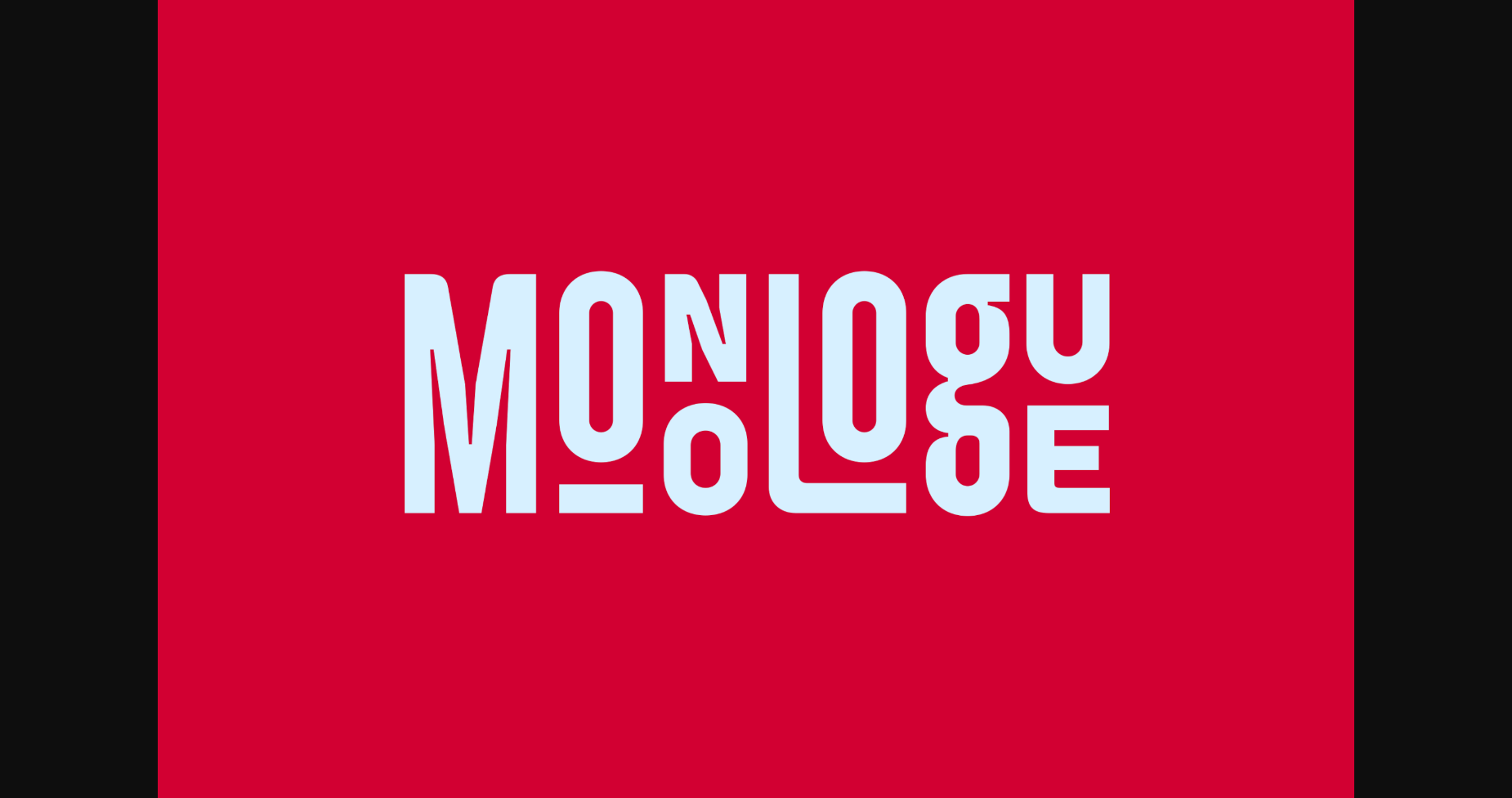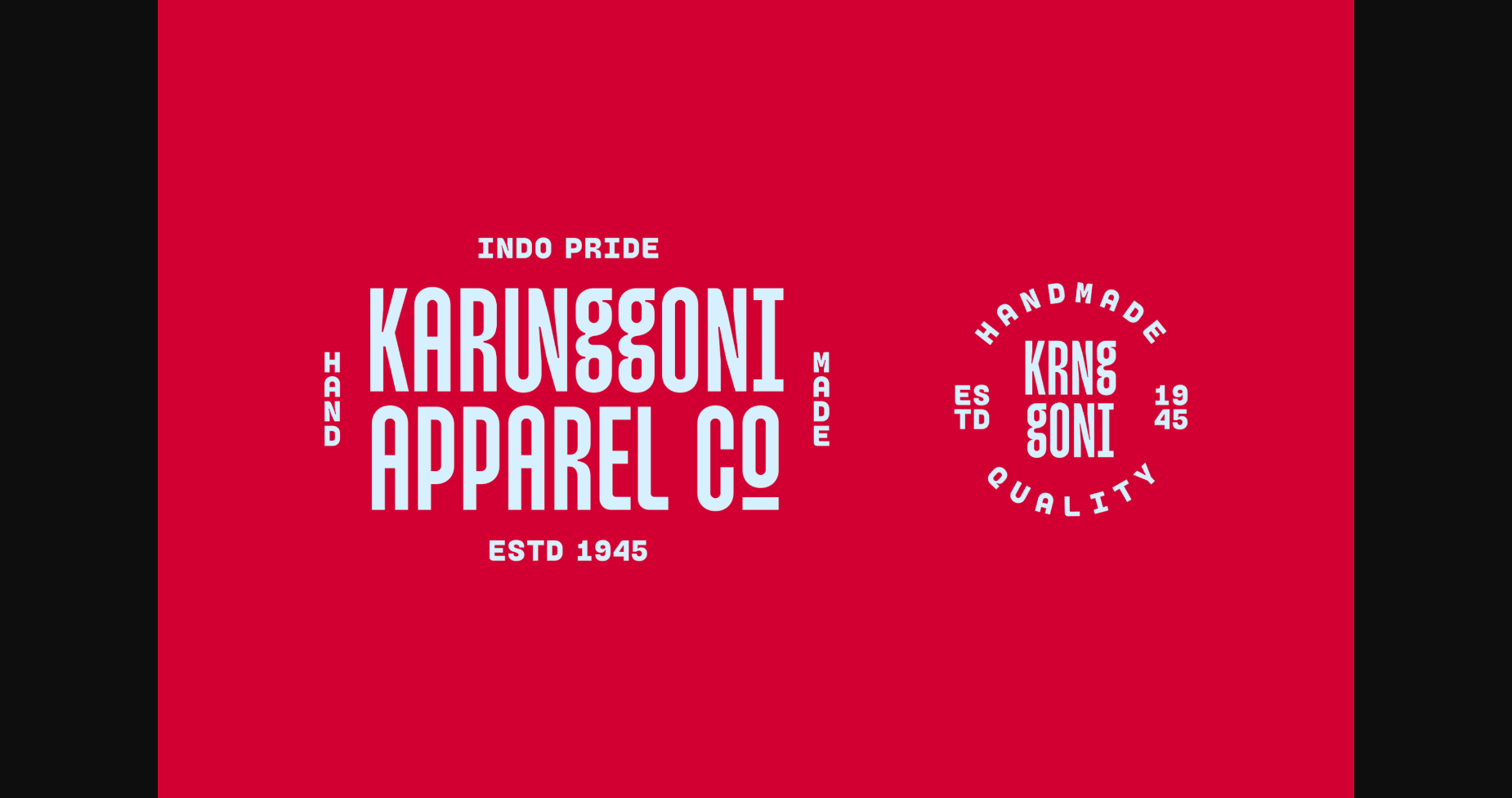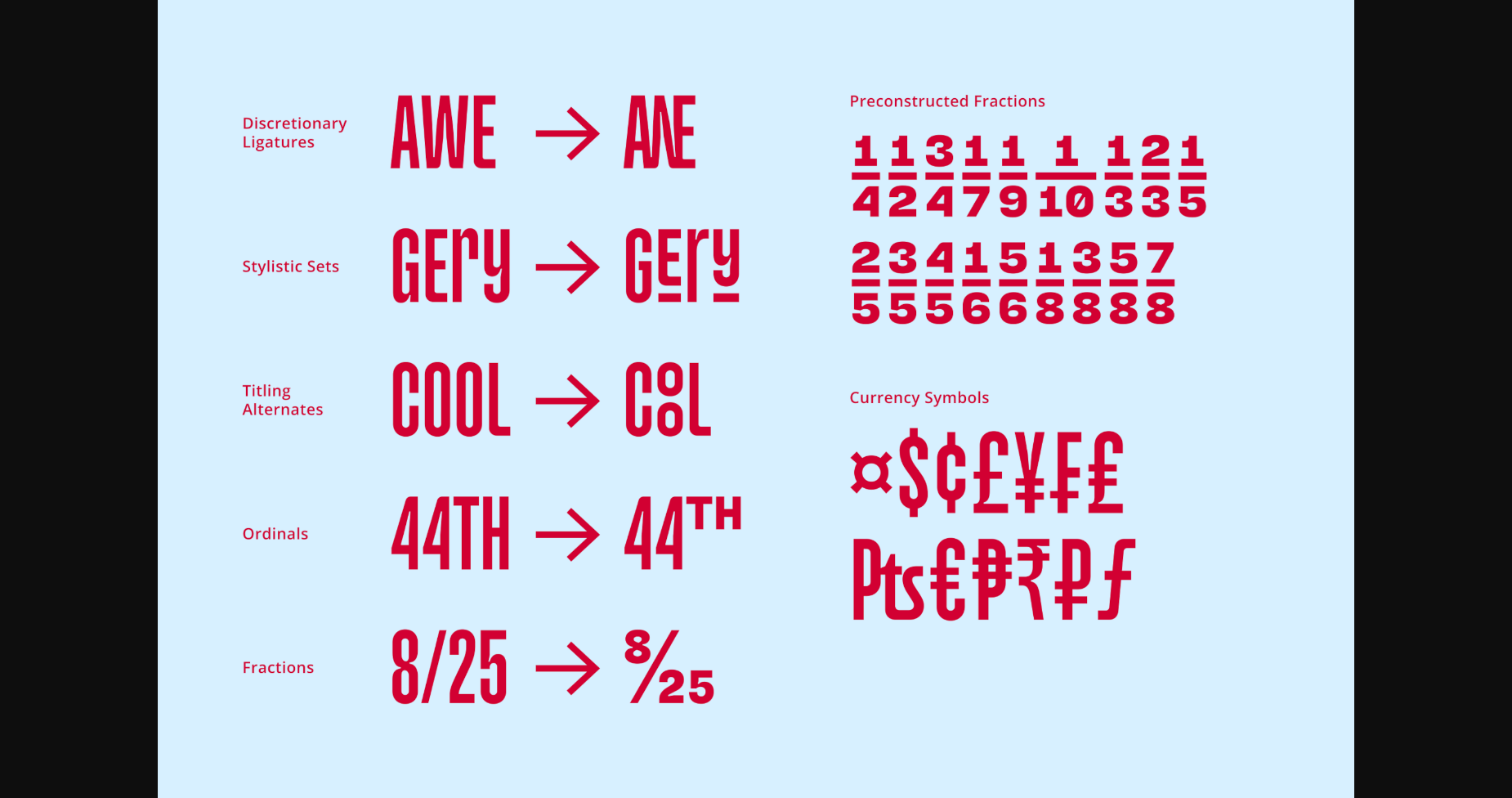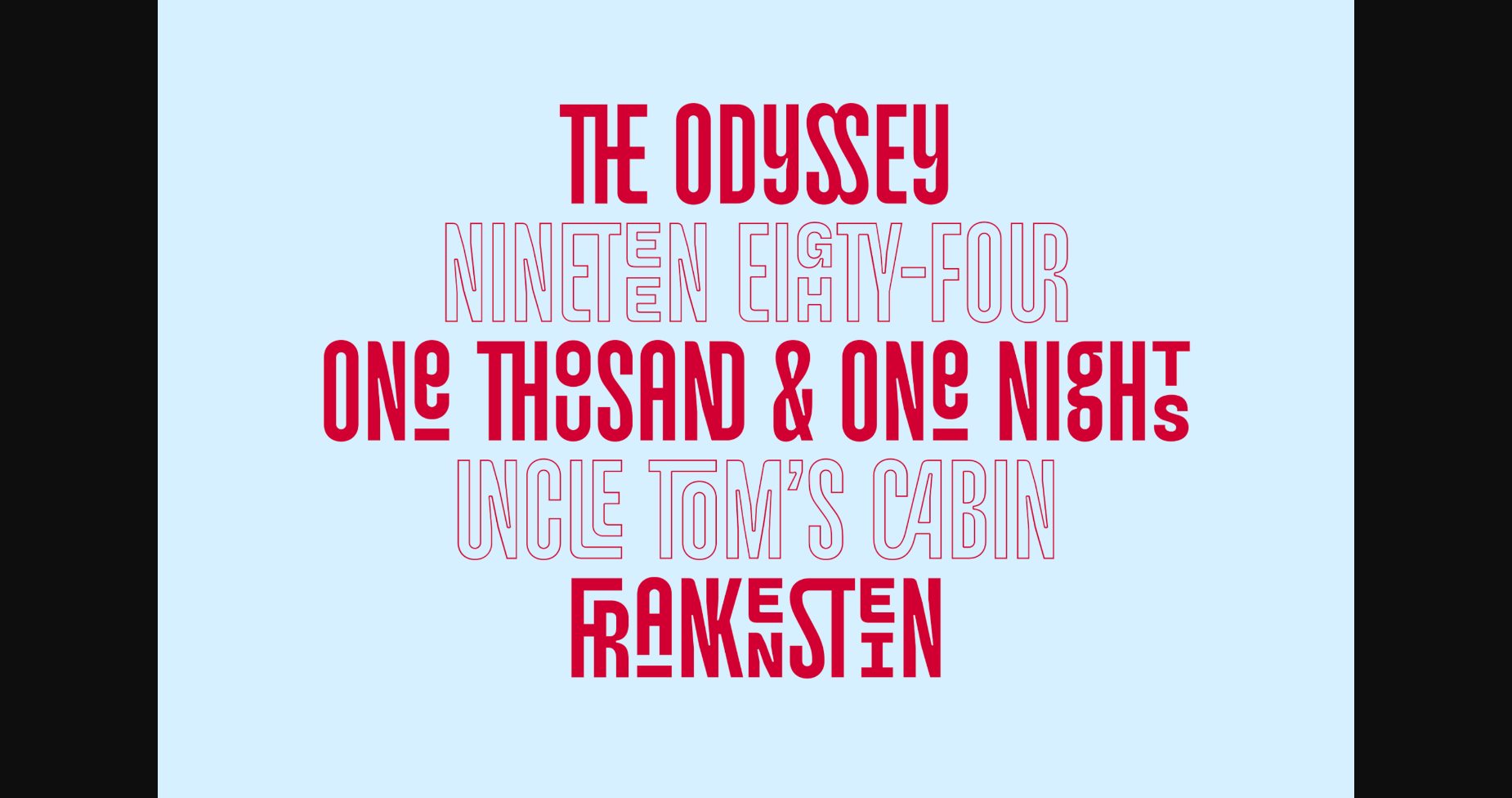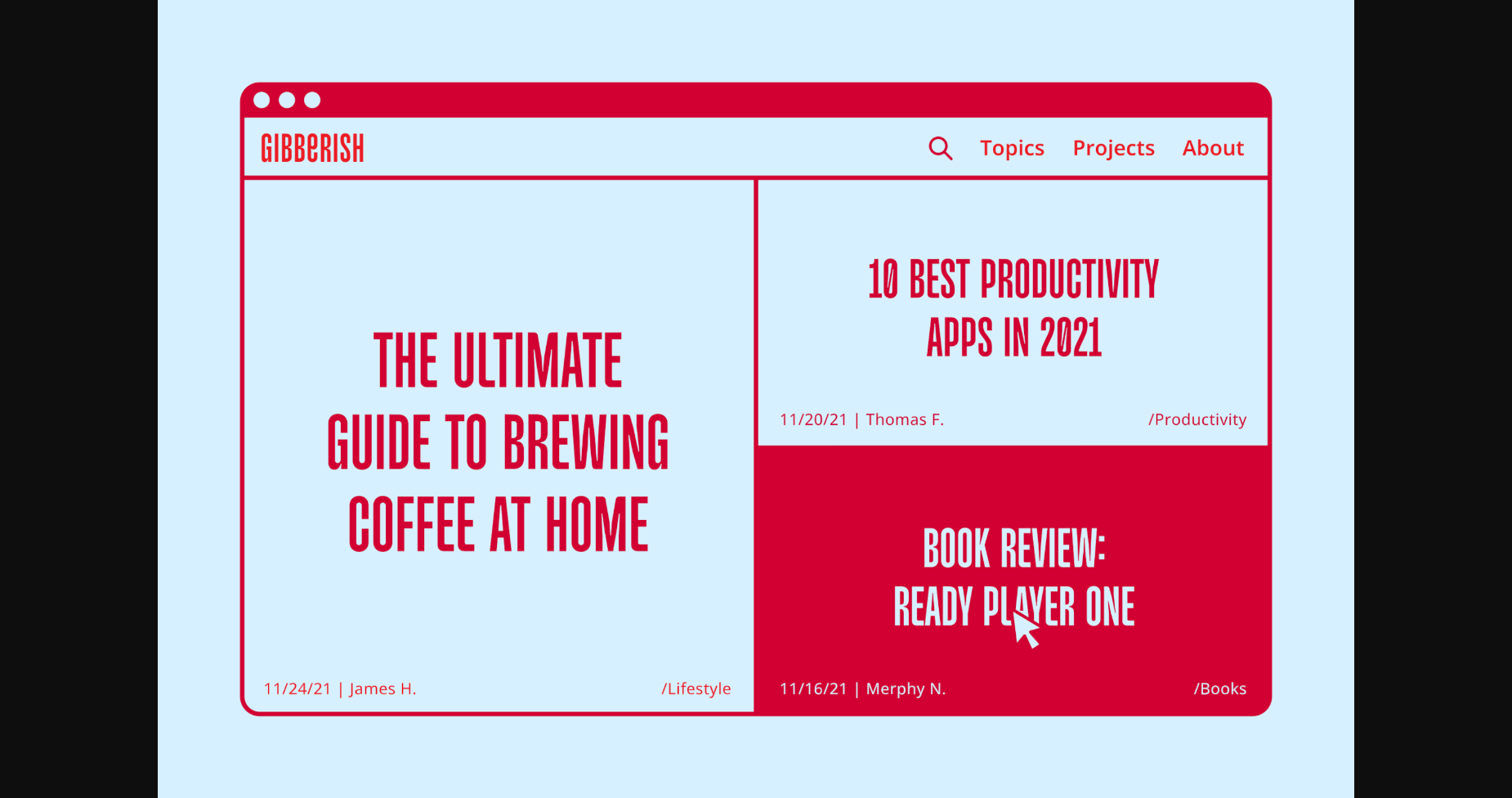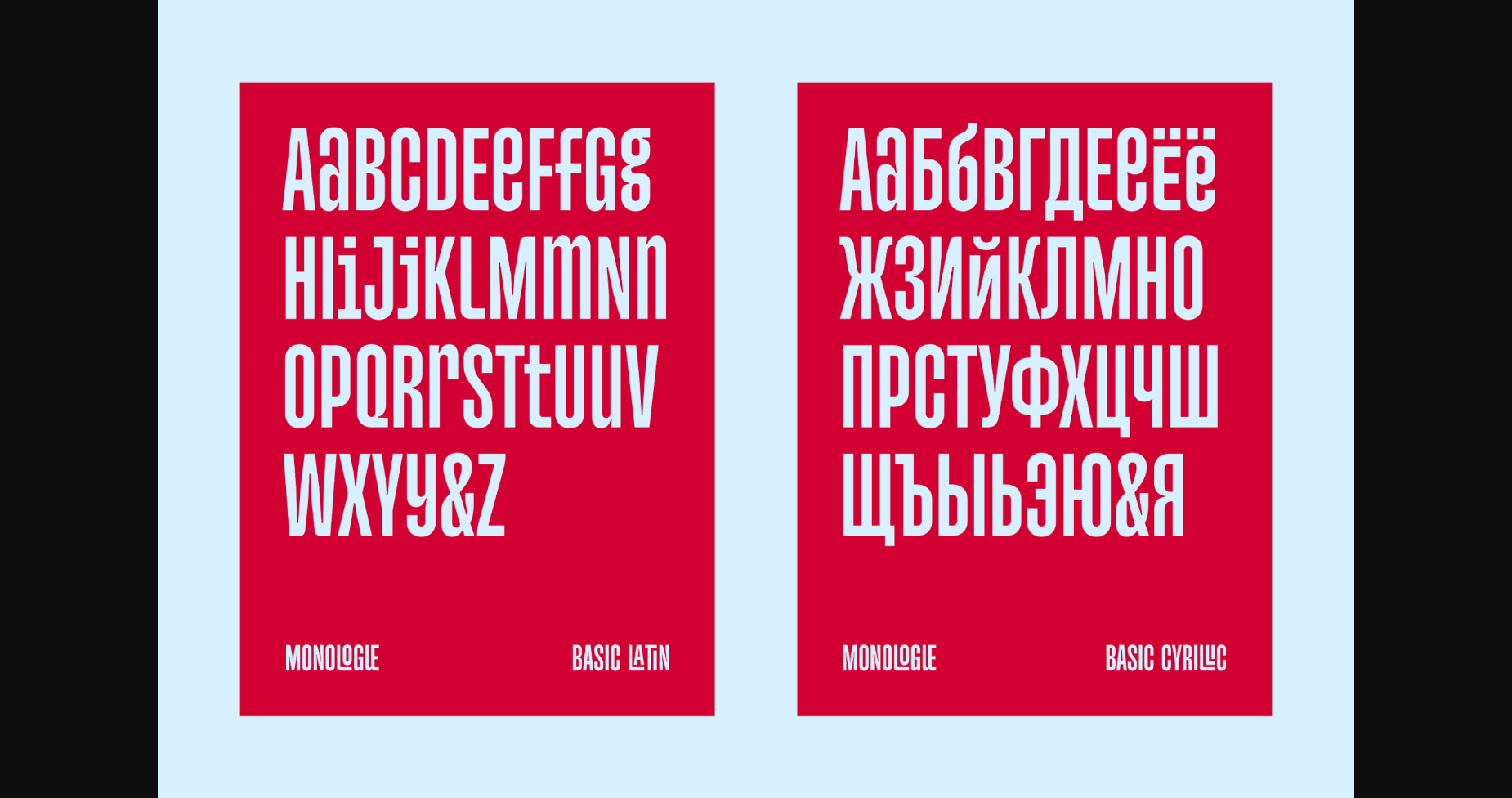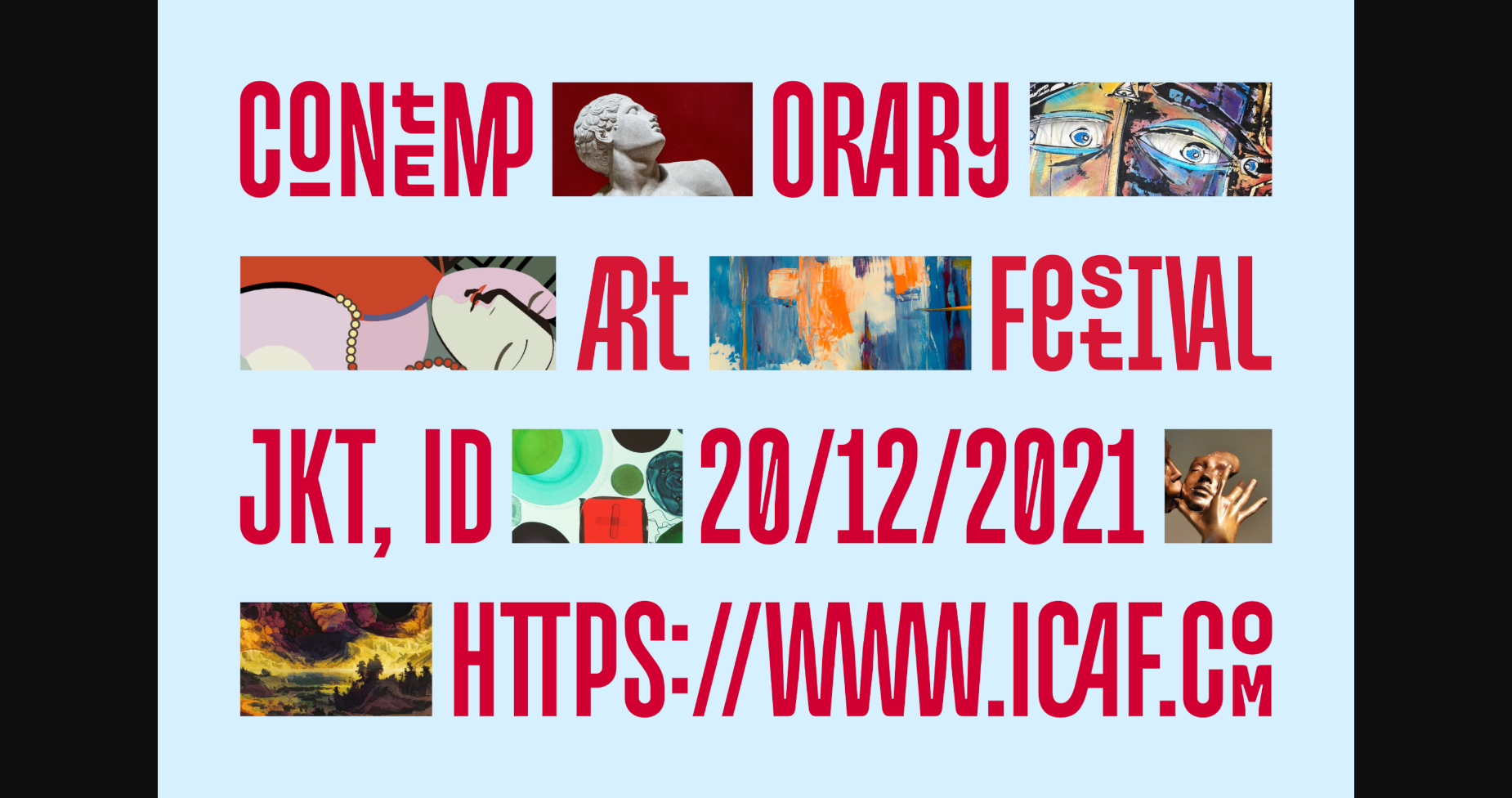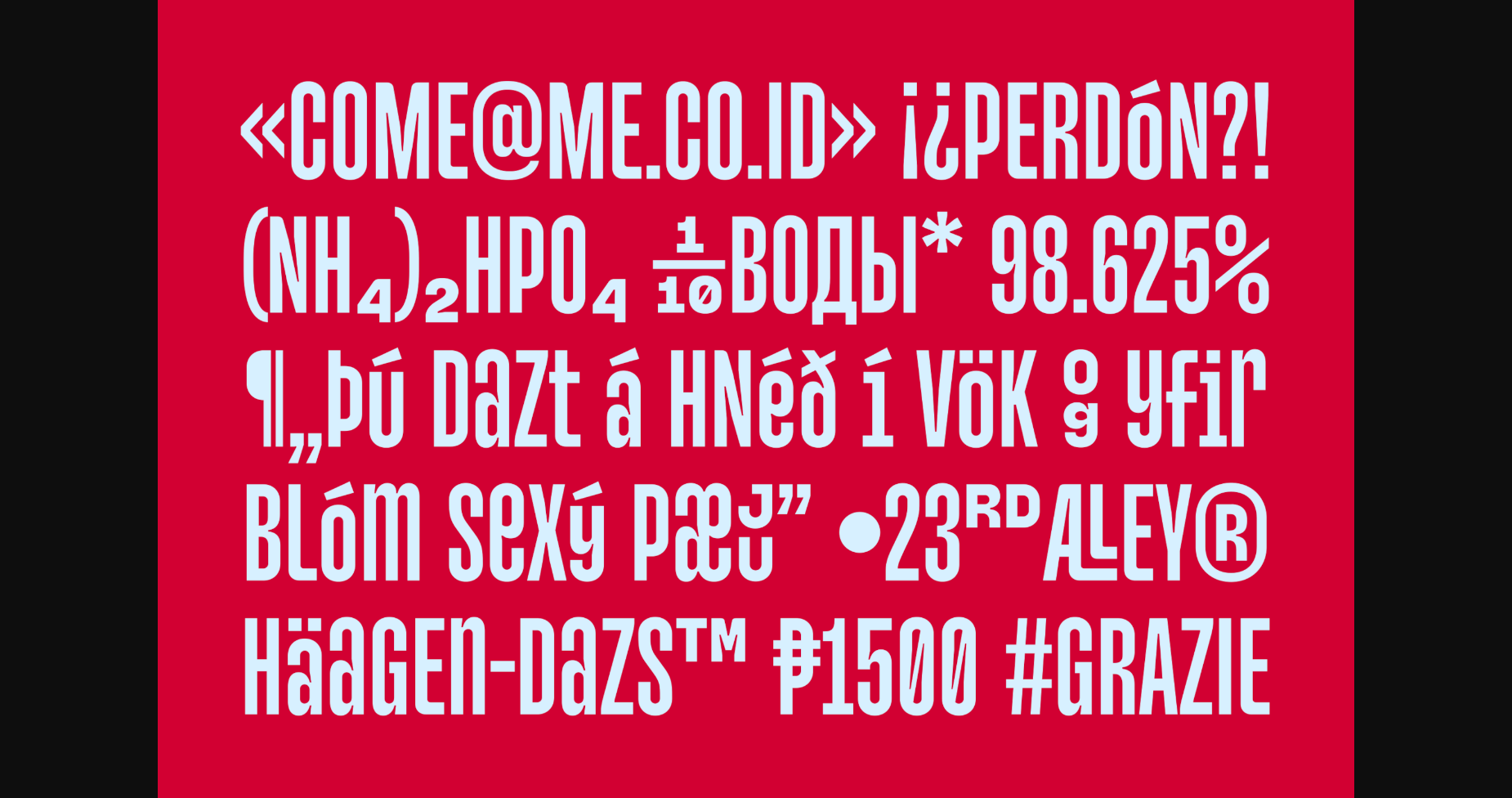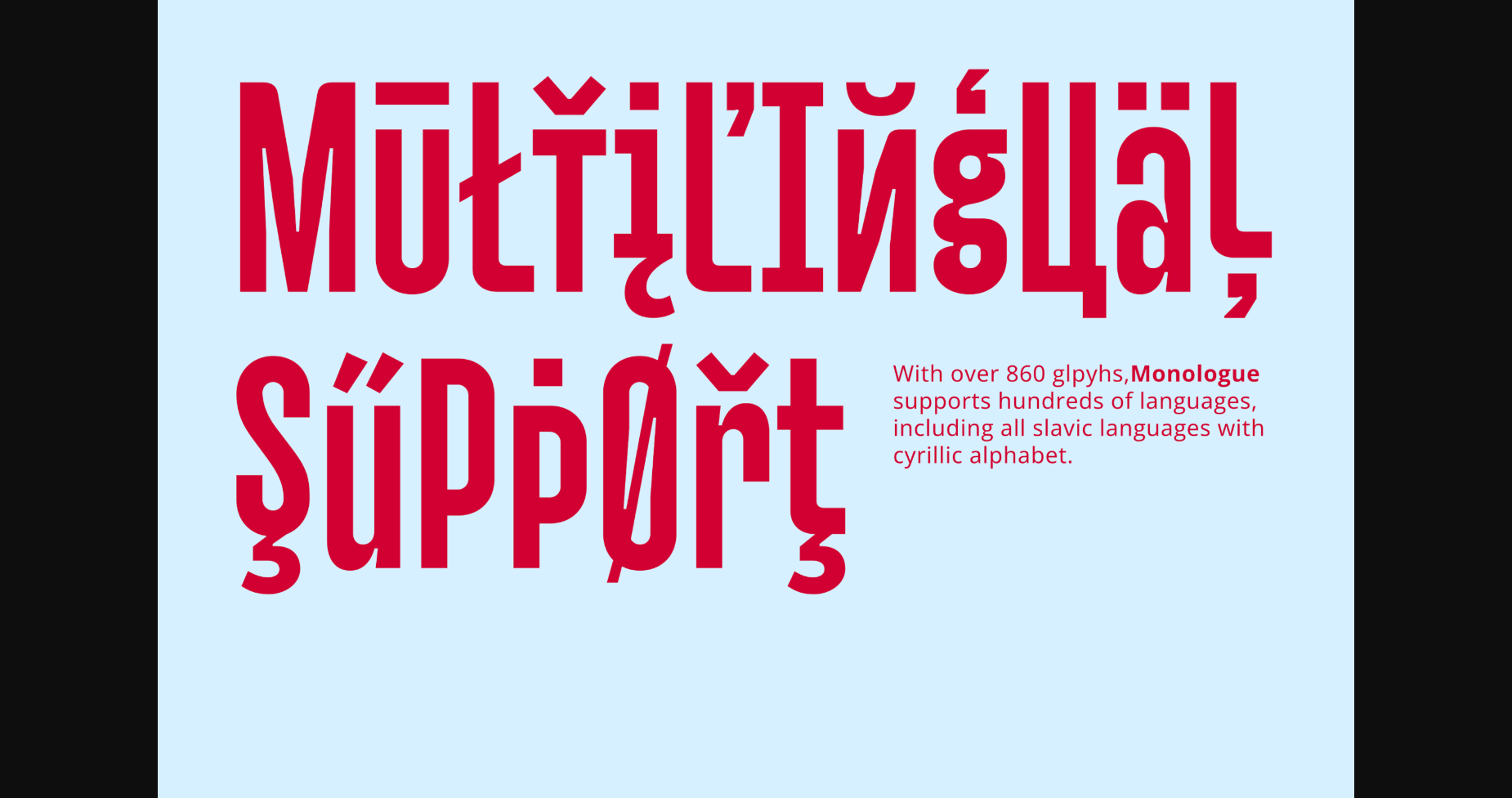
Monologue Font
About Monologue Font
Monologue is a simple, condensed sans serif font, featuring a bold and complex vibe. It was purposely crafted to be used in large point sizes, although it doesn’t lose its magic in small point sizes. It is perfect for headlines, billboards, magazines, websites, titles, posters, branding, and logos.